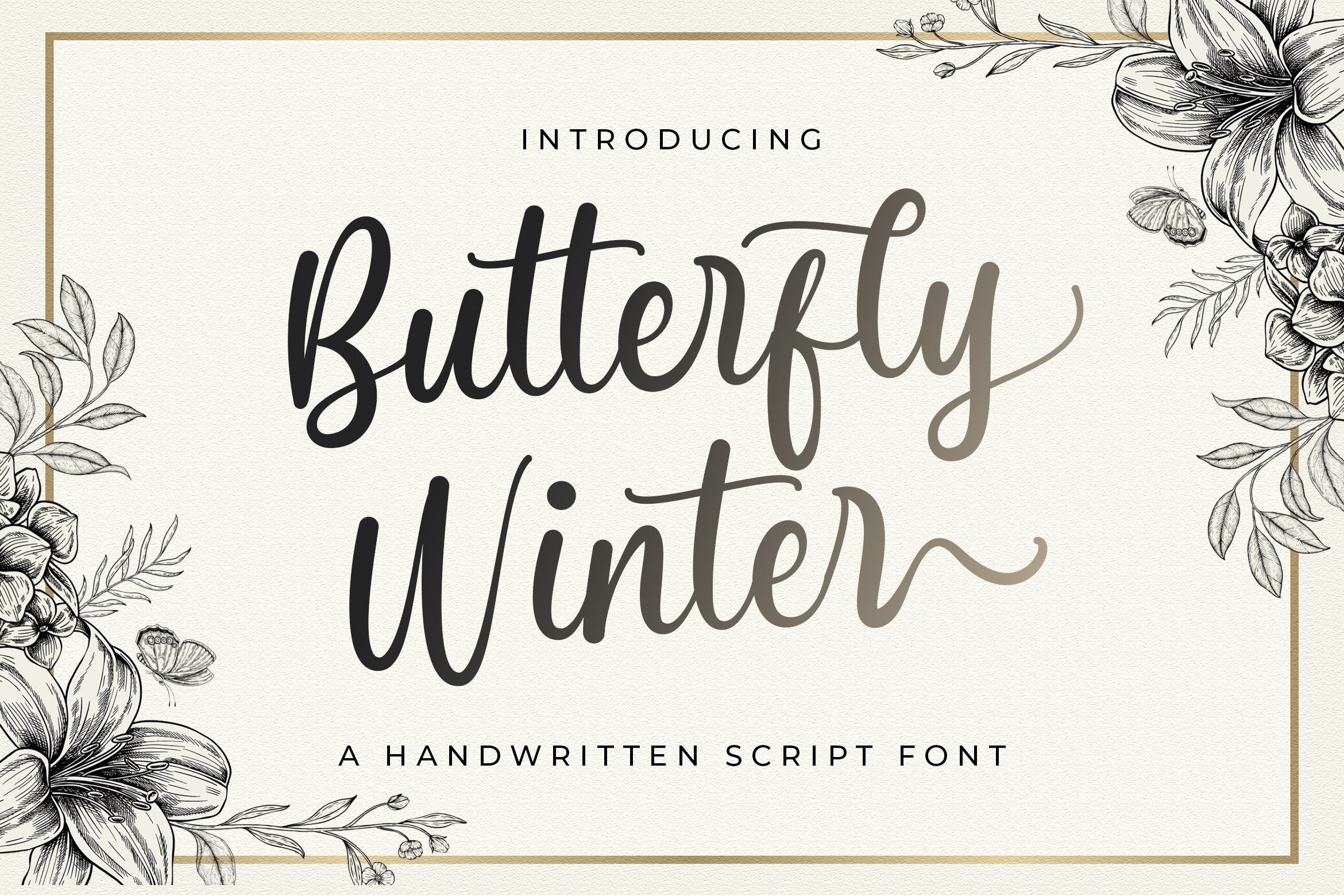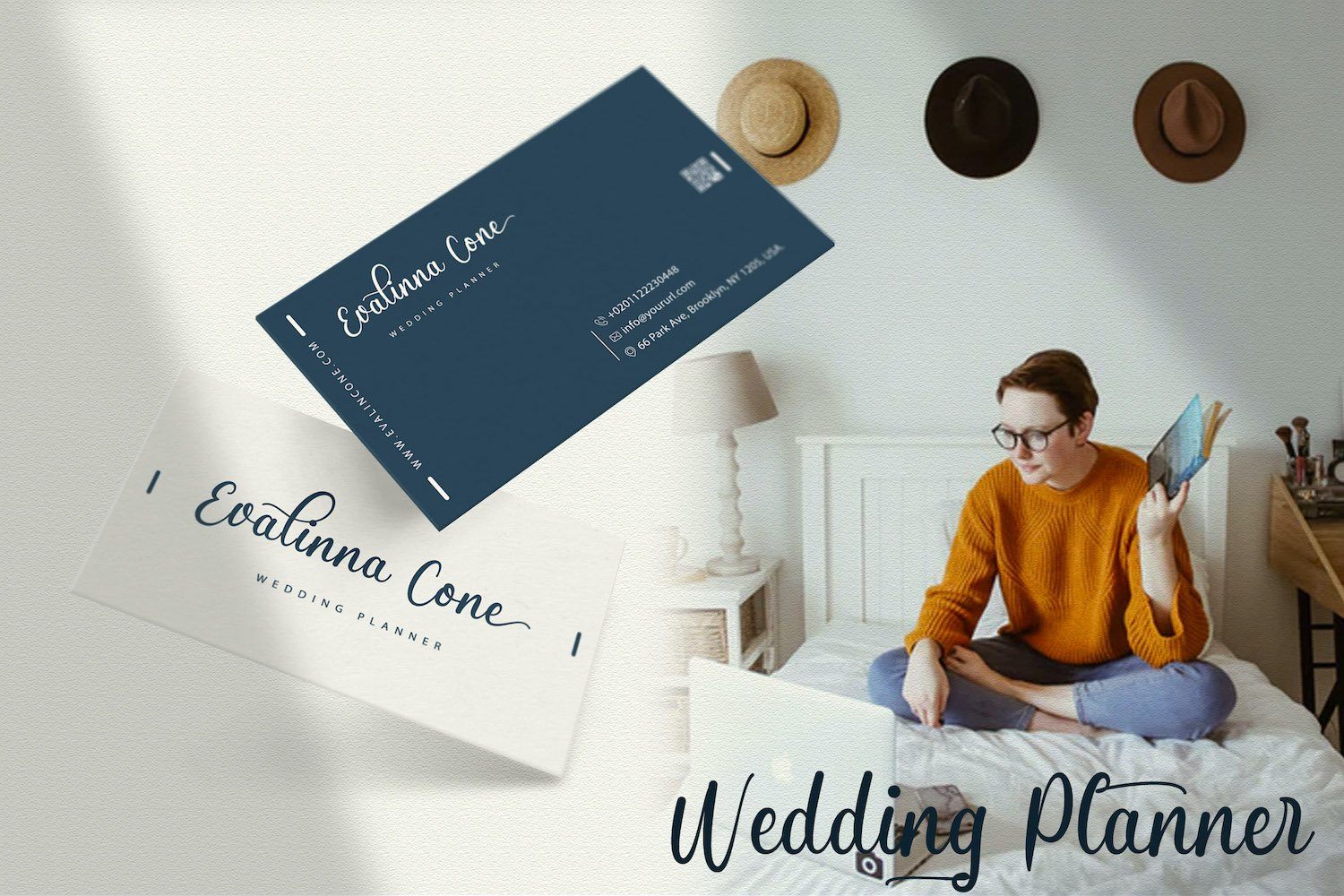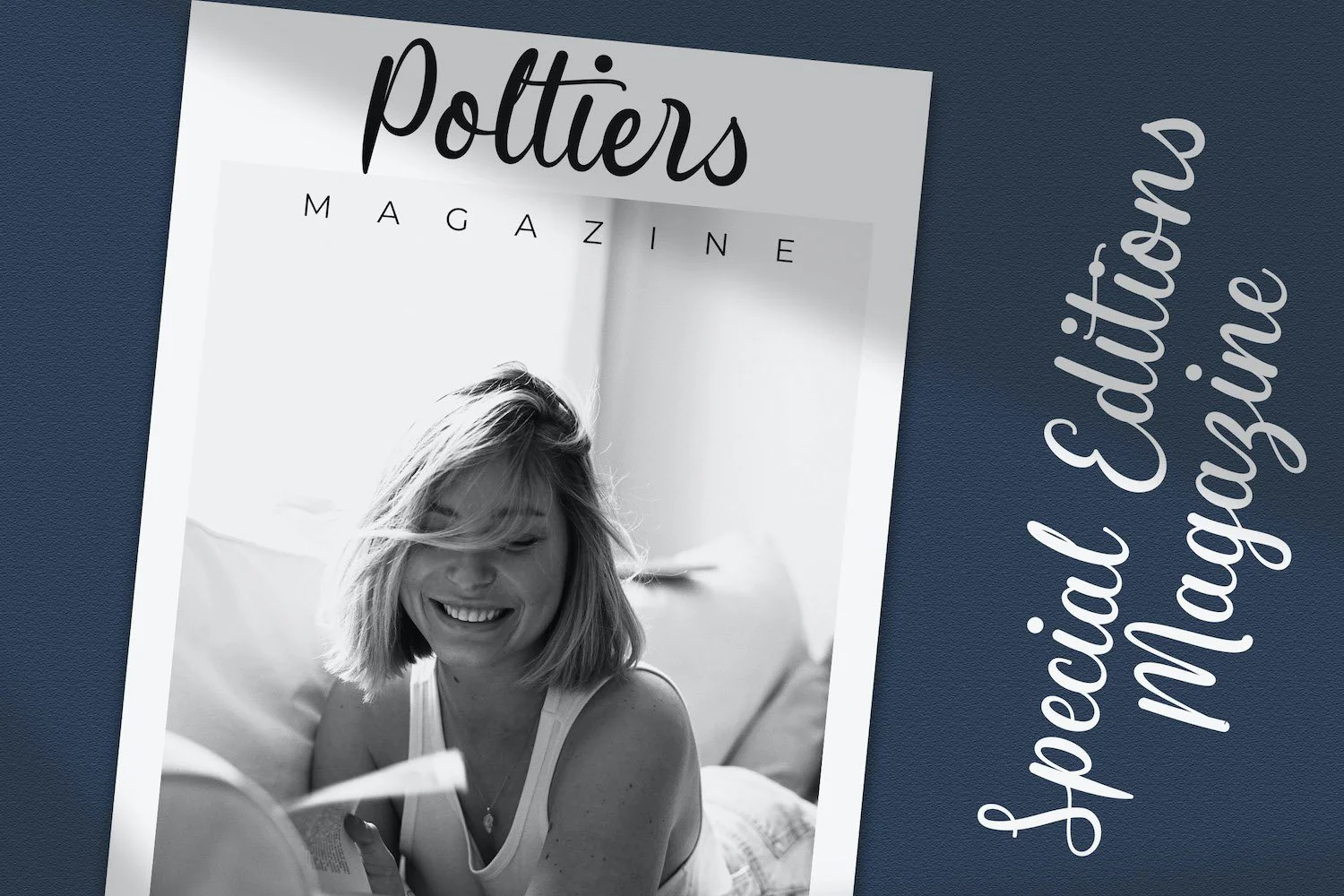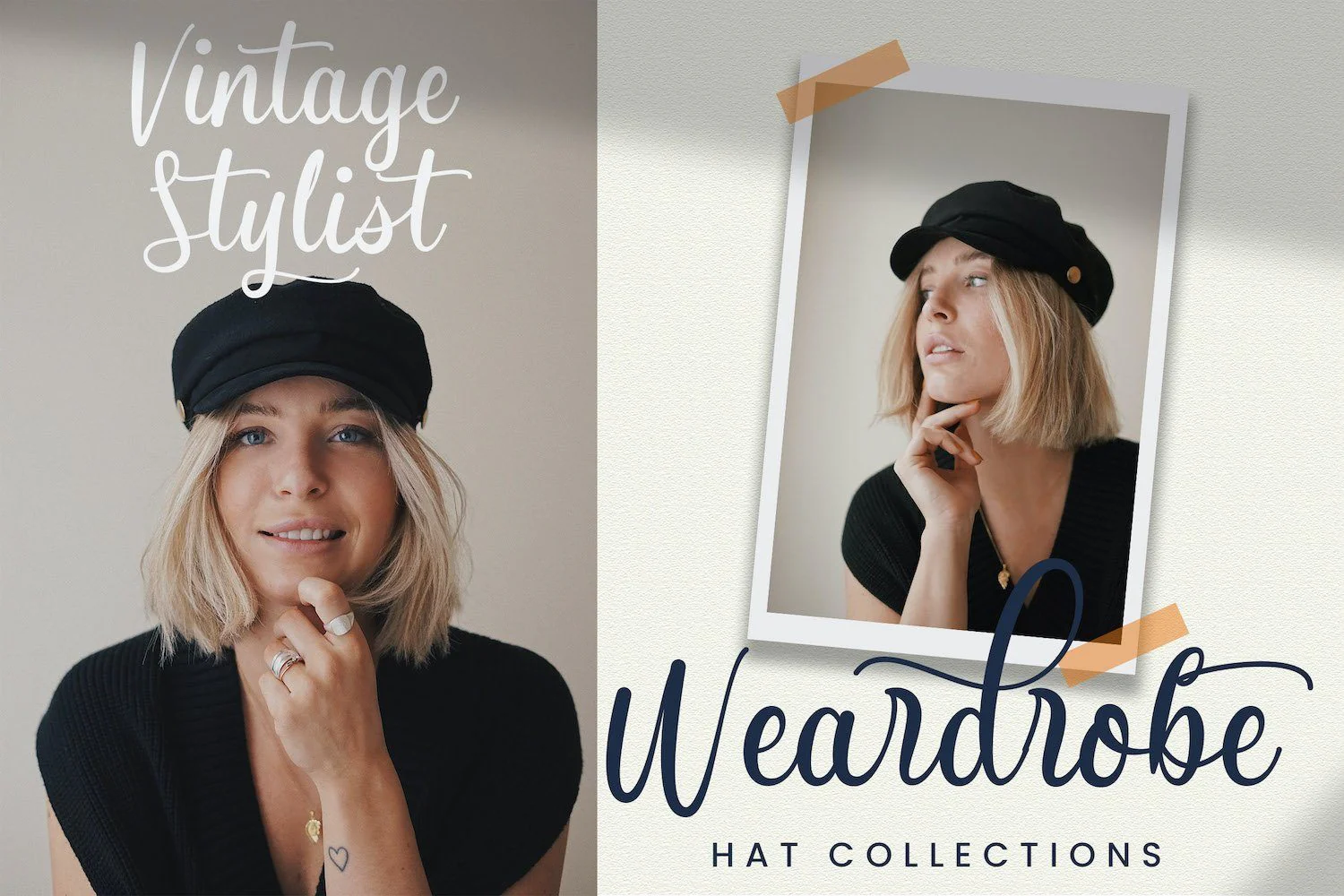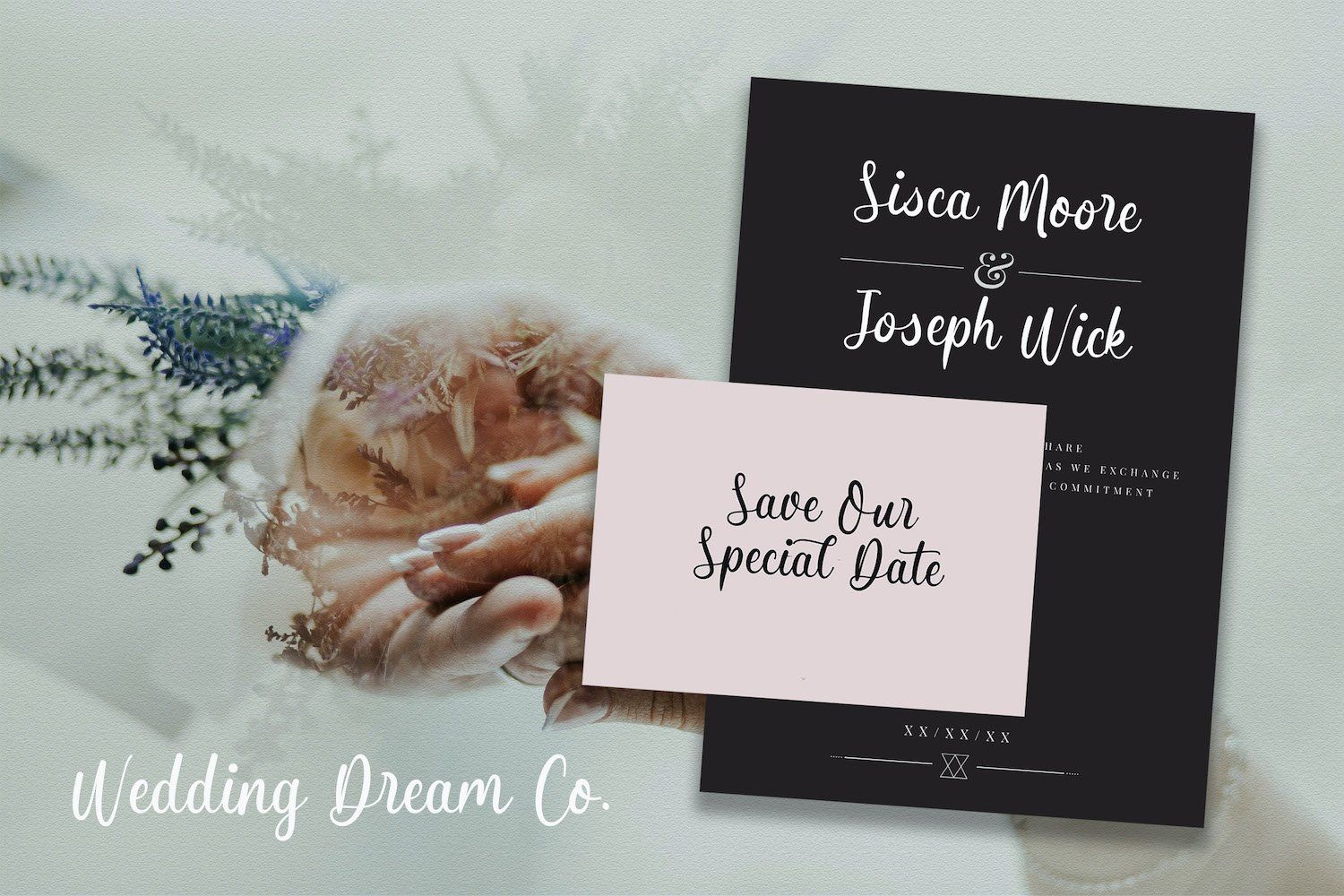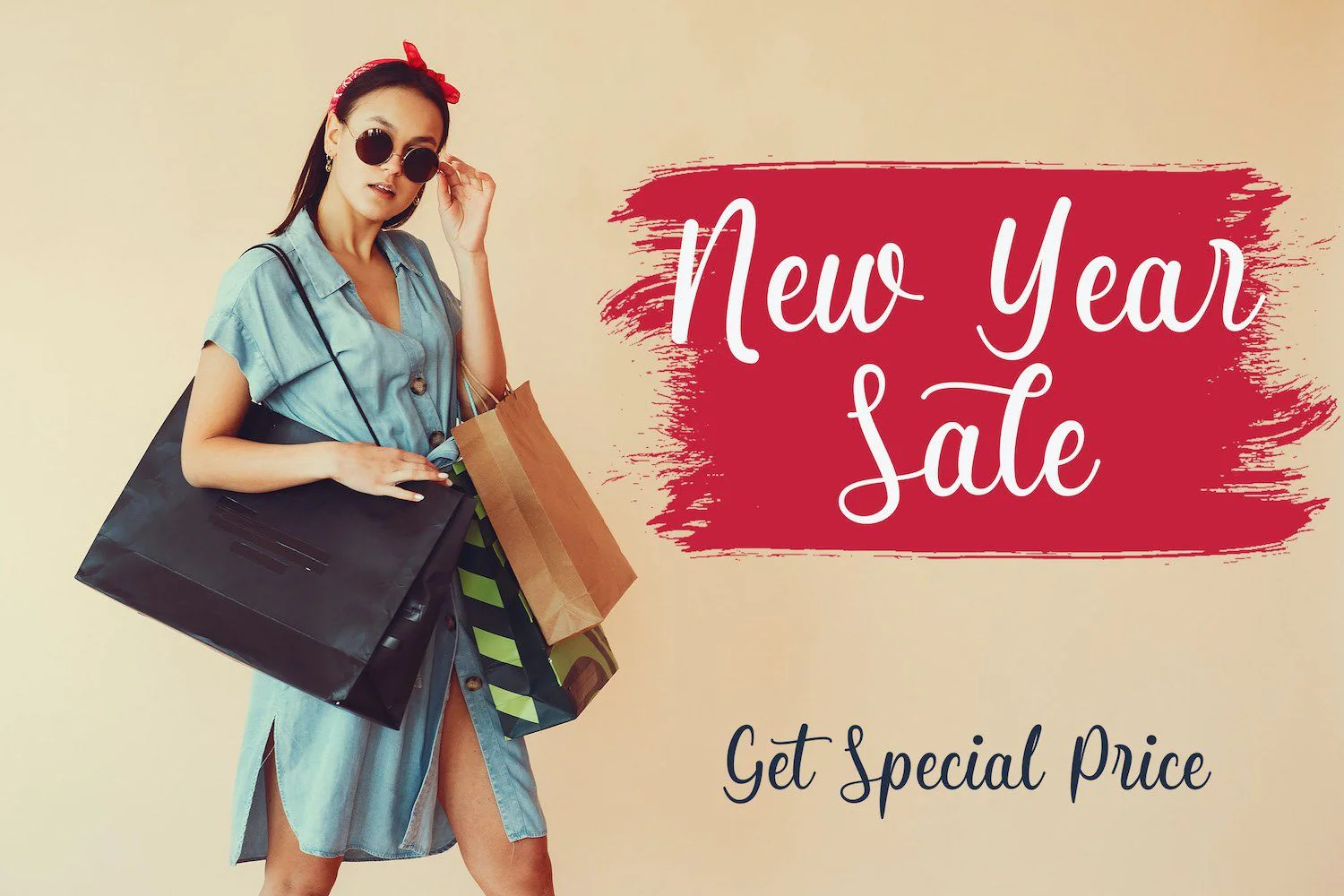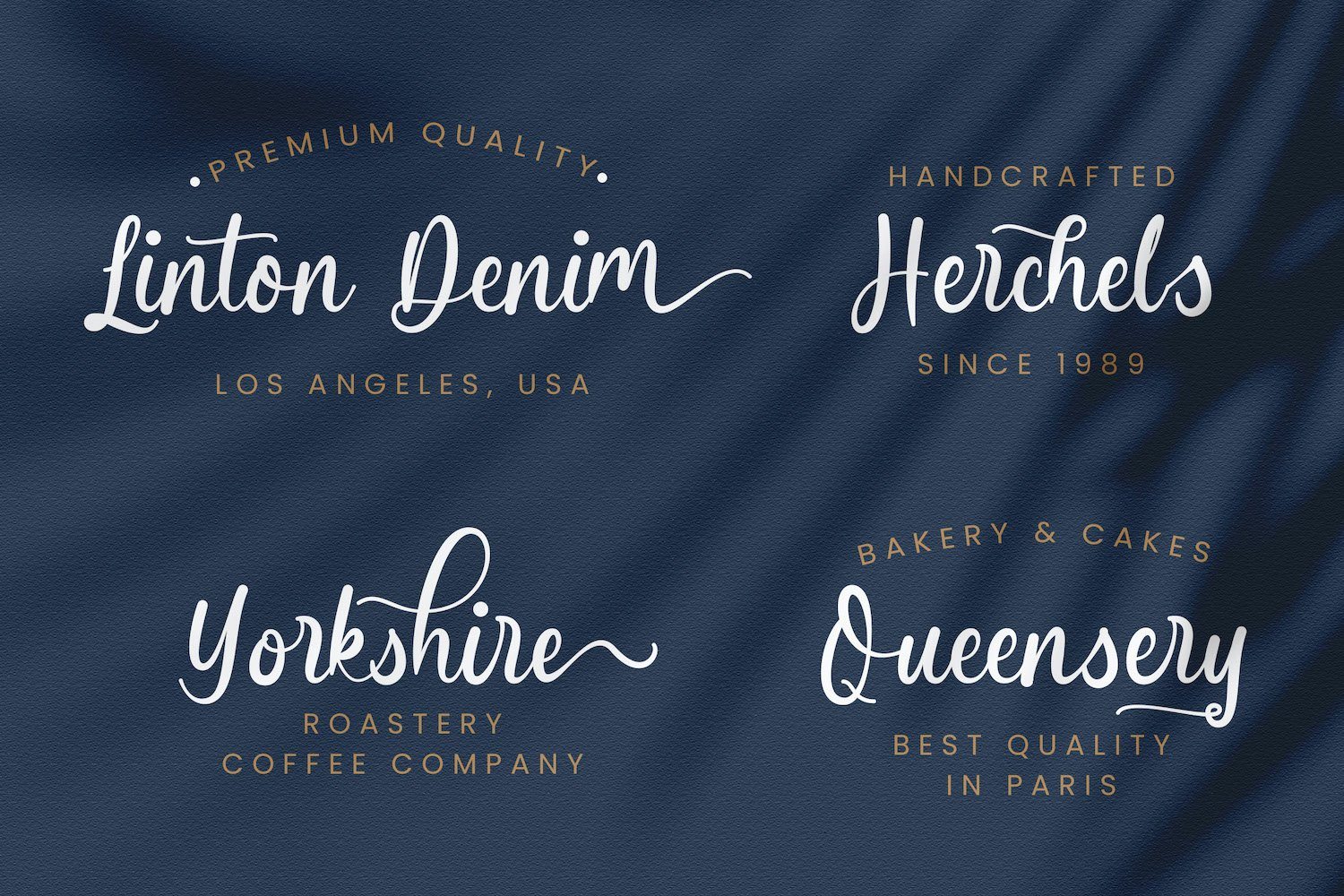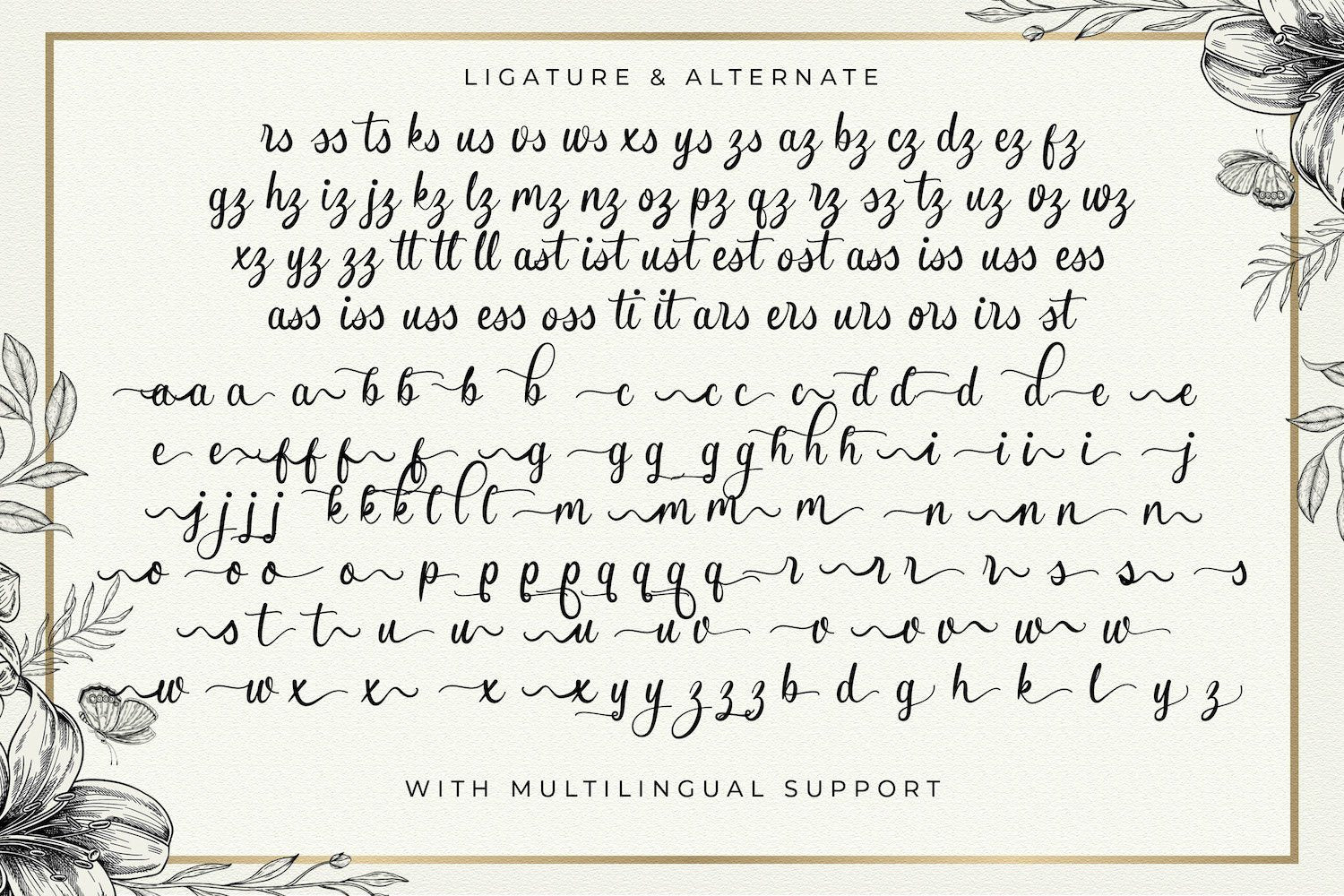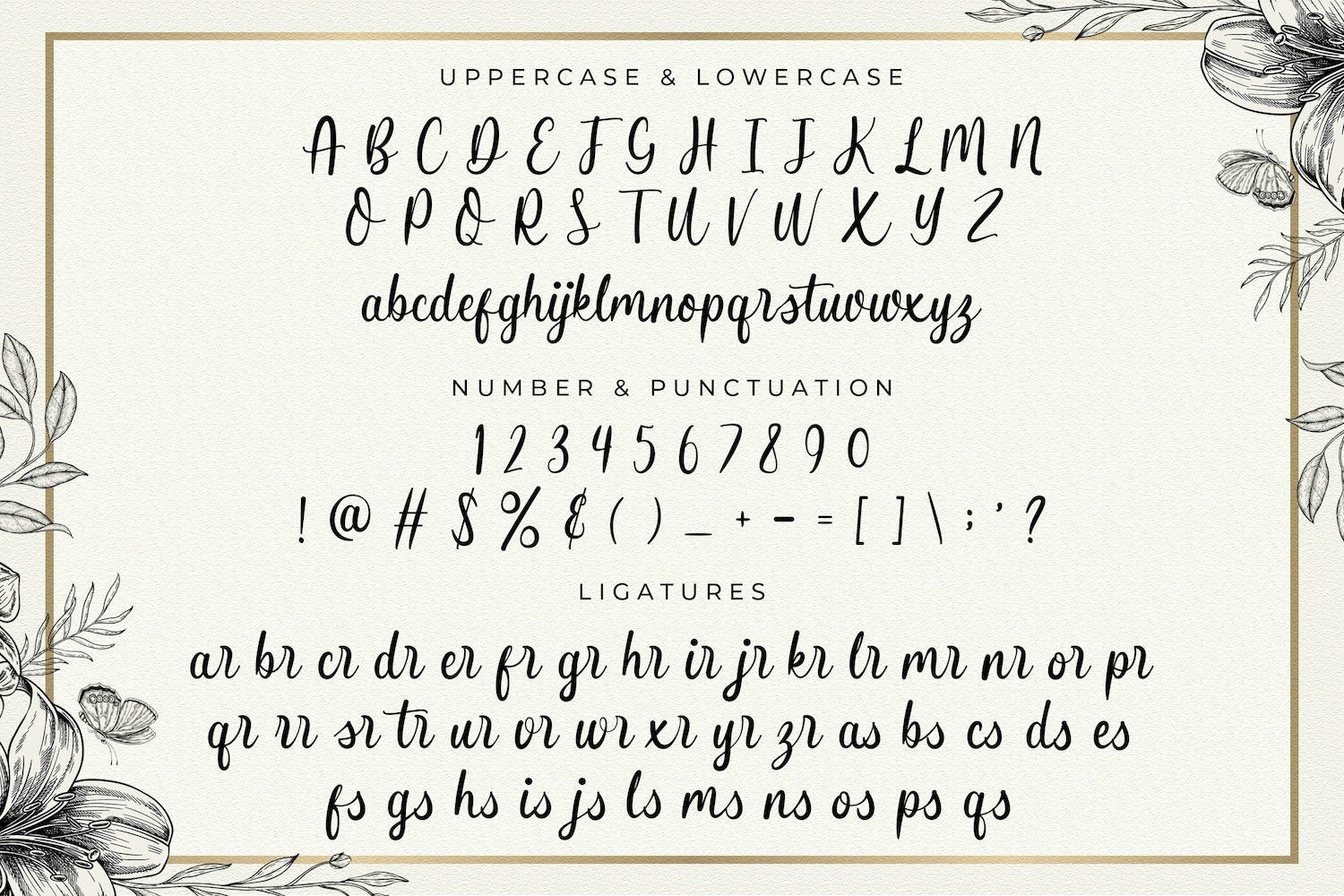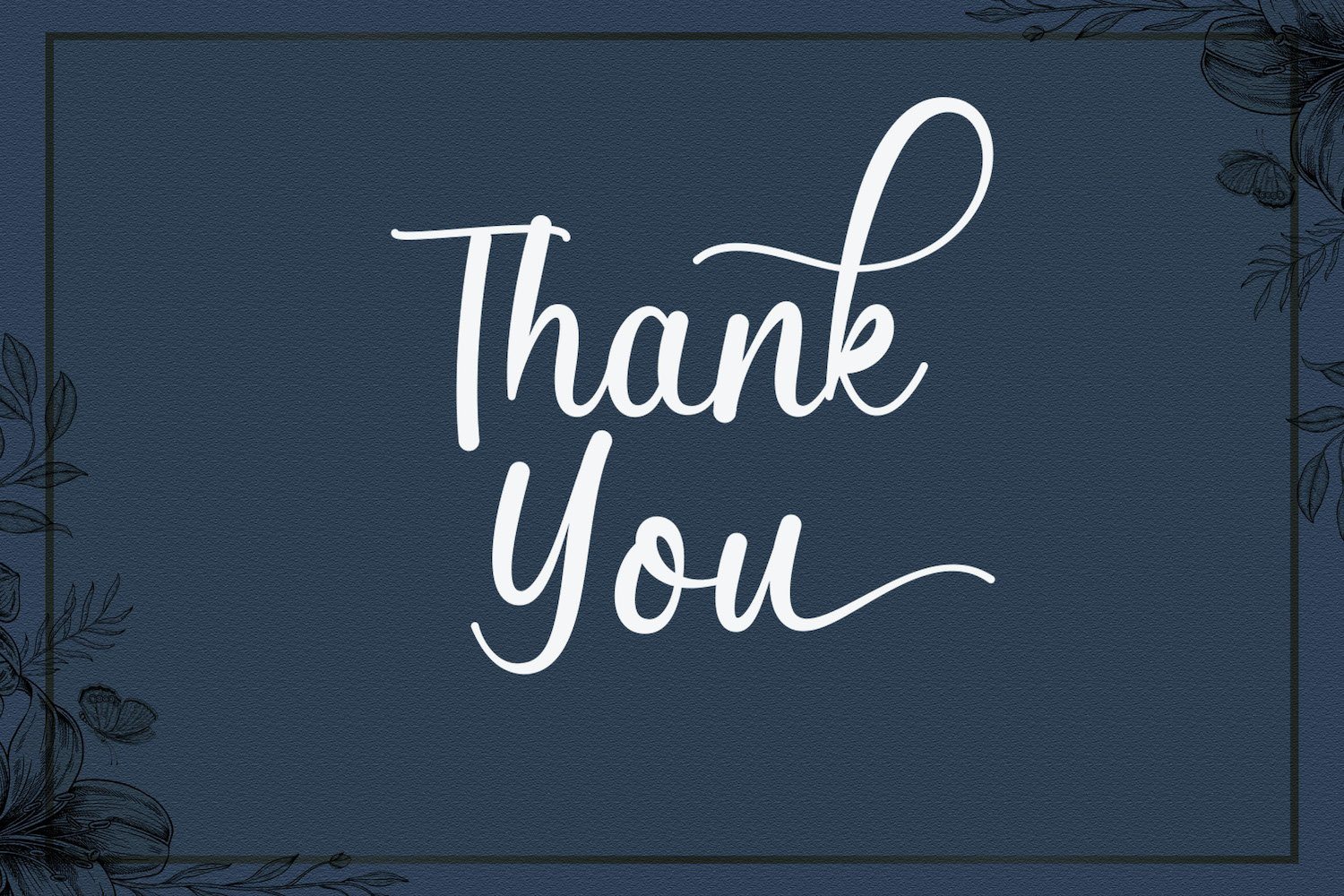
Butterfly Winter - Handwritten Font
Introducing Butterfly Winter - Handwritten Font
Butterfly Winter is a delicate, elegant and flowing handwritten font. It has beautiful and well balanced characters and as a result, it matches a wide pool of designs. Add it to your most creative ideas and notice how it makes them come alive!
Introducing Butterfly Winter - Handwritten Font
Butterfly Winter is a delicate, elegant and flowing handwritten font. It has beautiful and well balanced characters and as a result, it matches a wide pool of designs. Add it to your most creative ideas and notice how it makes them come alive!